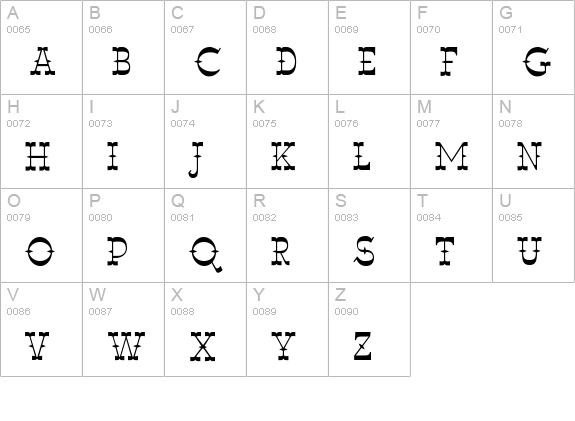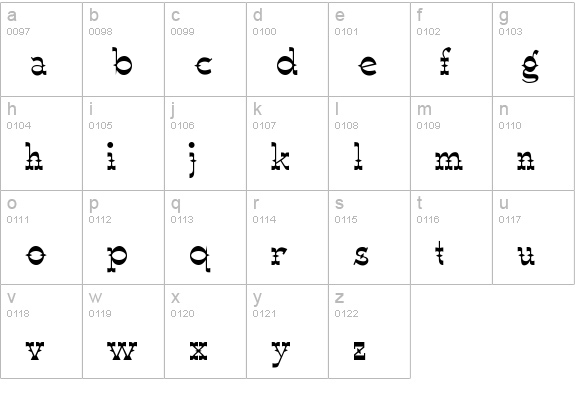
Luckyluke Font Details
Luckyluke font is a fun and playful typeface that exudes a sense of whimsy and charm. With its quirky shapes and unique design, this font is perfect for adding a touch of personality to your projects. Whether you're creating invitations, posters, or branding materials, Luckyluke font is sure to make your text stand out. The best part? Luckyluke font is completely free to download at FontsMarket.com. So go ahead and unleash your creativity with this delightful font that will bring a touch of luck to your designs.